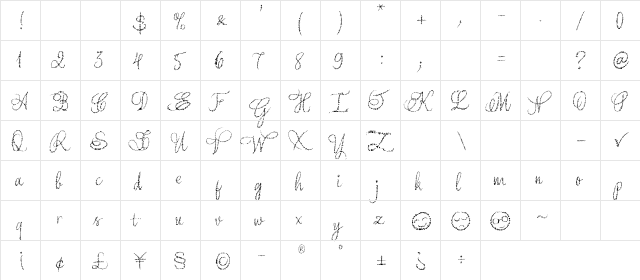
Yore script Regular
| Designer | Le Thi Thu Huong |
Design Context for Yore script Typeface
Yore script brings a calligraphic fluidity to the page — its connecting strokes and expressive curves give it an unmistakably human quality.
Font Pairing: Combine Yore script with a simple geometric sans for maximum contrast — the tension between flowing curves and clean structure is a classic typographic pairing.
Pro Tip: Pair Yore script with a clean sans-serif for supporting text. The contrast between fluid script and geometric structure creates an elegant typographic hierarchy.